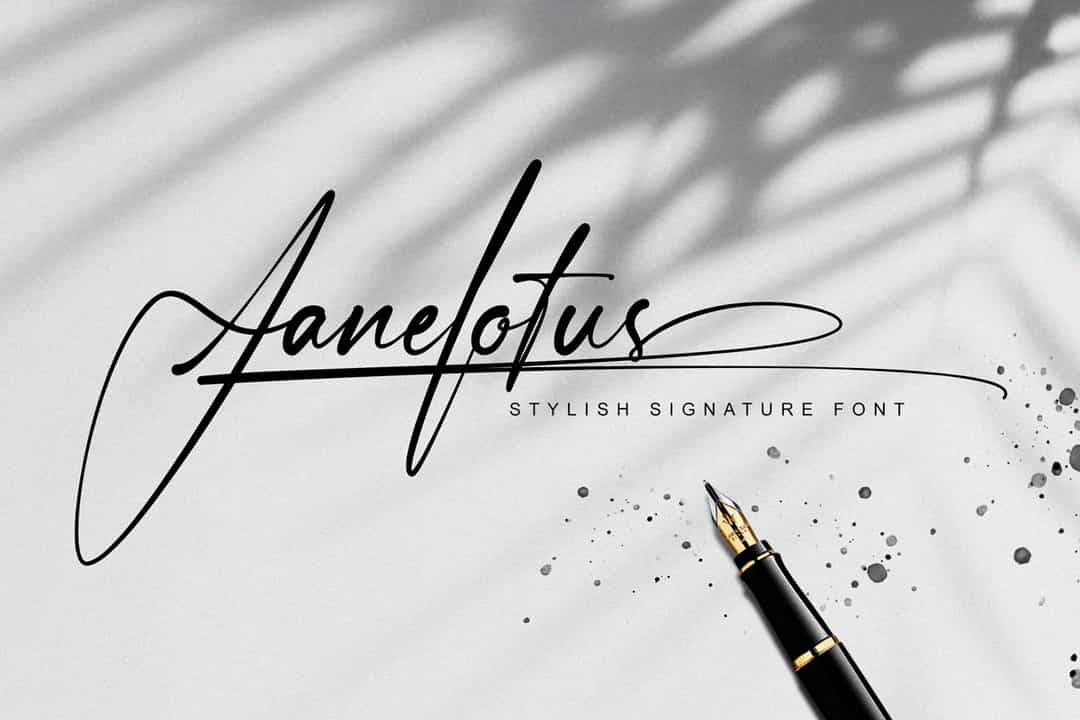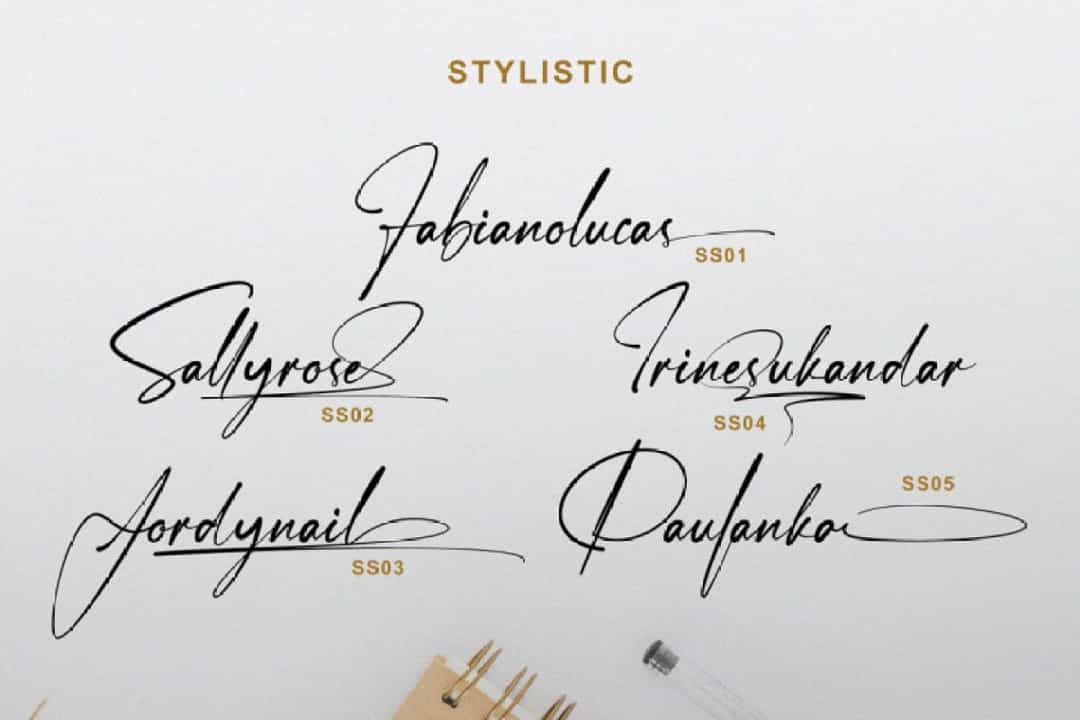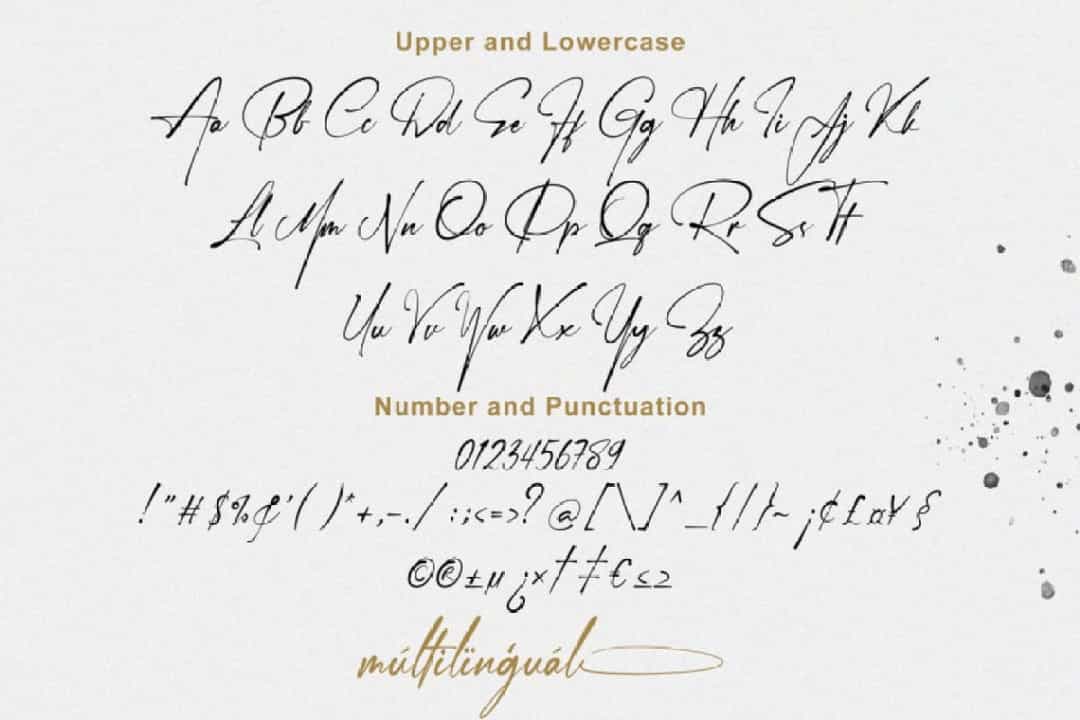
Janelotus is the perfect signature script typeface that is elegant and has a nice easy-going flow. This font can be used in logo design and branding, cards and stationery, wedding, invitations, ads and social media posts, packaging and product designs, labels, photos, watermarks, and special events or anything else for that matter.